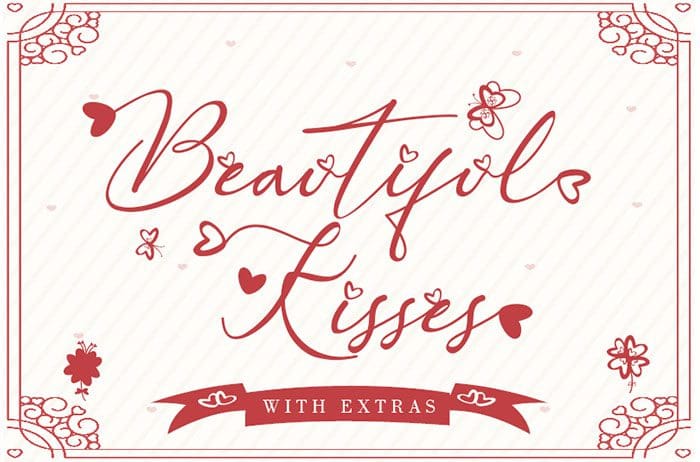
Beautiful Kisses Handwritten Font
Beautiful Kisses handwritten font Surely is an extraordinary script and the perfect font to express your love. “Love must always be worthy of happiness”. It has an amazingly beautiful and elegant style. Created this font by Thomas Aradea. You can also search more free Handwritten Fonts. I hope you enjoy this font.